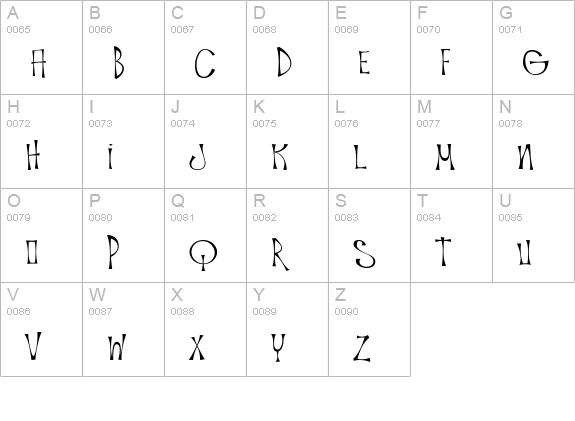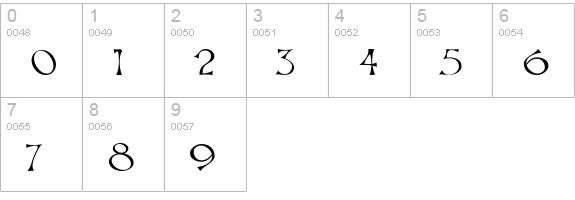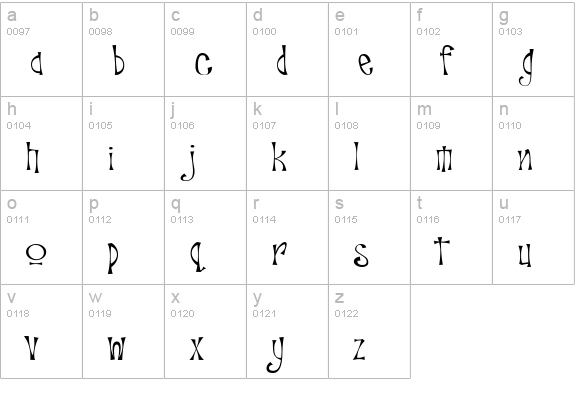
Troutkings BTN Light Font Details
Troutkings BTN Light is a refined, elegant variant in the Troutkings typeface family \xE2\x80\x94 well suited to elegant body text, refined sub-headings, and luxury branding.
Troutkings BTN Light font is a stunning typeface that exudes elegance and sophistication. With its clean lines and graceful curves, this font is perfect for adding a touch of class to any design project. Whether you are creating a logo, designing a website, or crafting a beautiful invitation, Troutkings BTN Light will elevate your work to new heights. This font is characterized by its delicate and refined letterforms, which effortlessly blend modernity with a classic appeal. The gentle weight of the strokes gives Troutkings BTN Light an airy and ethereal quality, making it ideal for creating a sense of tranquility and serenity in your designs. One of the best things about Troutkings BTN Light font is that it is available for free. Yes, you heard that right! You can freely download this exquisite font at FontsMarket.com. This means that you can enhance your creative projects without having to worry about any additional costs. So, whether you're a professional designer looking for a versatile font to add to your collection or a casual user in need of a beautiful typeface for a personal project, Troutkings BTN Light is the perfect choice. Download it today and experience the seamless blend of elegance and simplicity that this font offers.